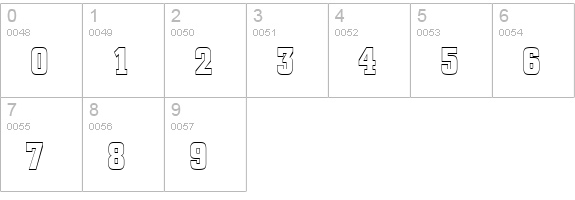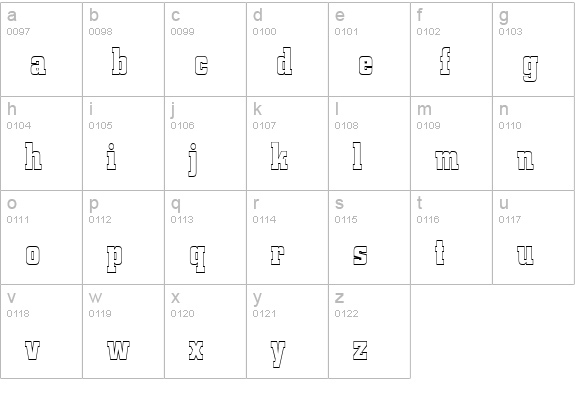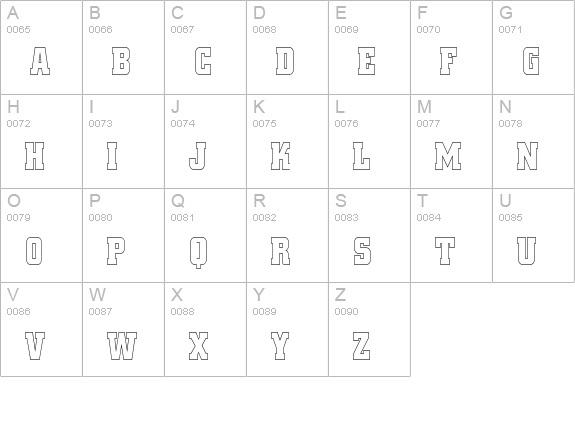
BorghsHollowCondensed Normal Font Details
BorghsHollowCondensed Normal is the standard, neutral variant in the BorghsHollowCondensed typeface family \xE2\x80\x94 well suited to general body text, paragraphs, and standard typographic work.
BorghsHollowCondensed Normal font is a modern and sleek typeface that exudes sophistication and elegance. With its clean lines and sharp edges, this font is perfect for adding a touch of class to any design project. Whether you're creating a logo, a poster, or a website, BorghsHollowCondensed Normal font will make your text stand out and grab attention. The best part is that BorghsHollowCondensed Normal font is completely free to download at FontsMarket.com. You can easily access this stylish font and enhance your designs without any cost. Don't miss out on this fantastic opportunity to elevate your projects with the timeless appeal of BorghsHollowCondensed Normal font. Download it now and see the difference it can make in your work!